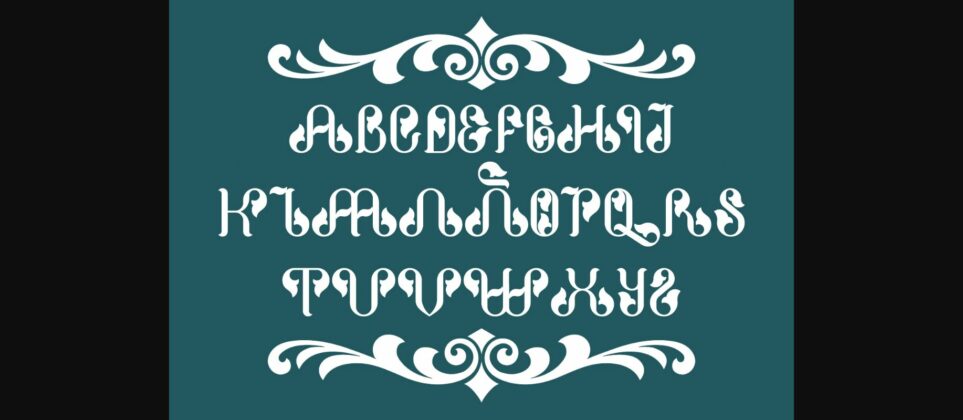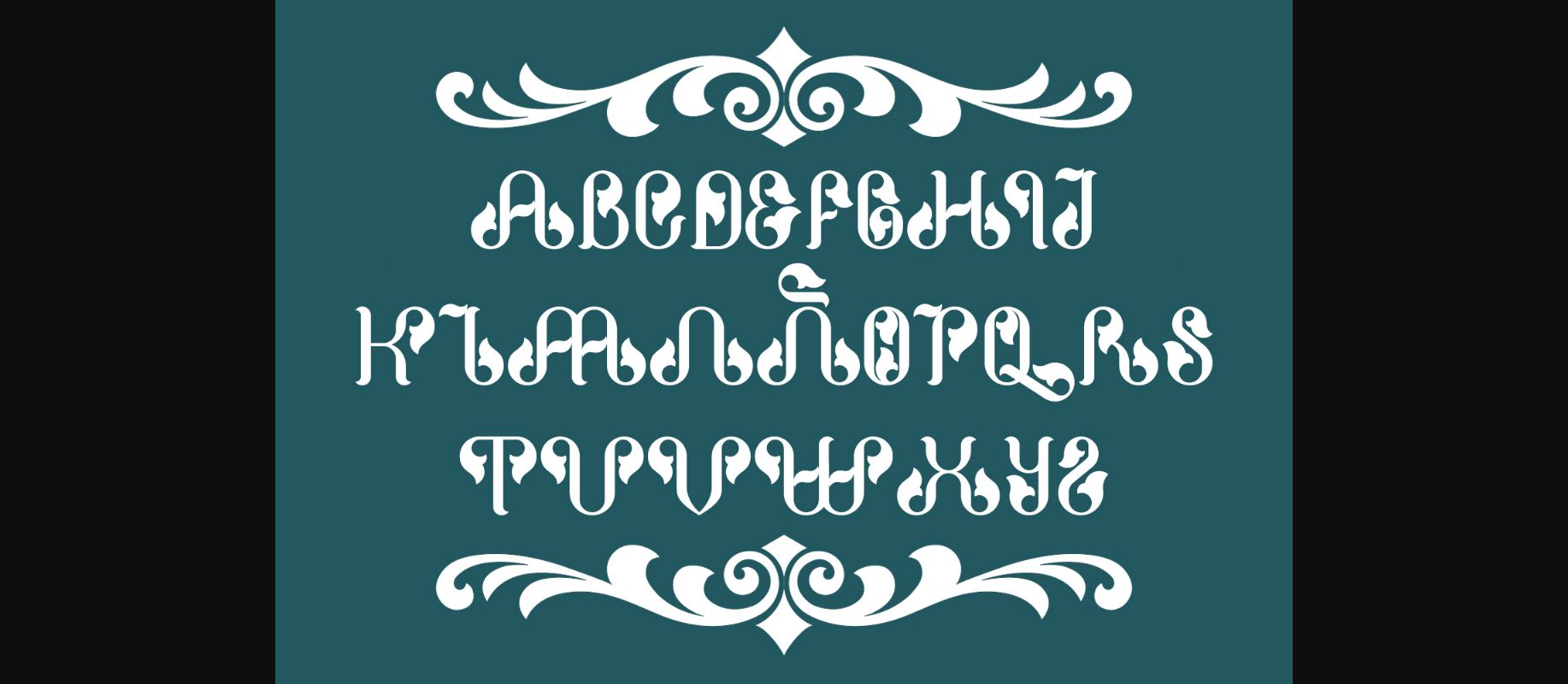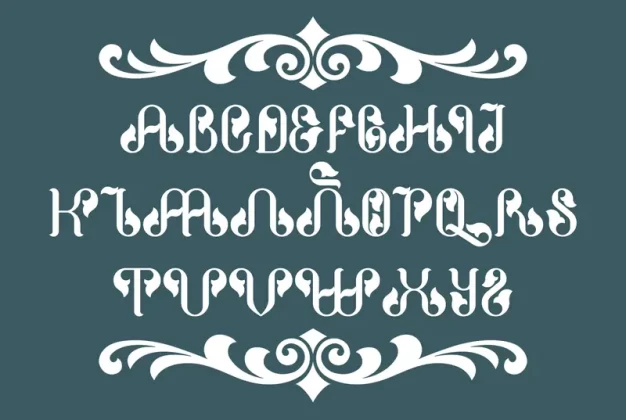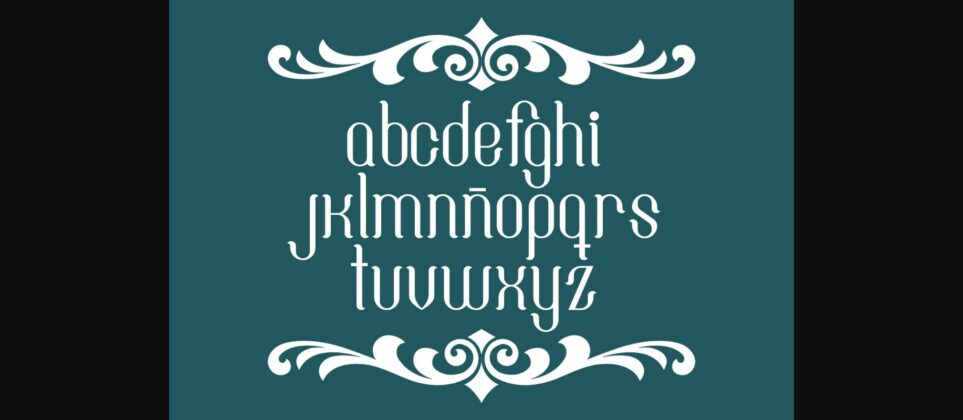
About Elegantys Font
Elegantys was created to encompass both elegant and modern sensibilities of typography, making it a great option for a large range of design styles. This decorative font is charming, and adds a ton of class when used alongside traditional font styles.